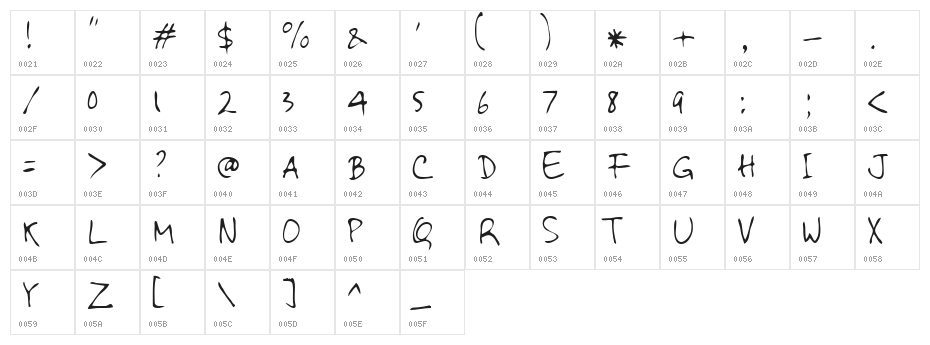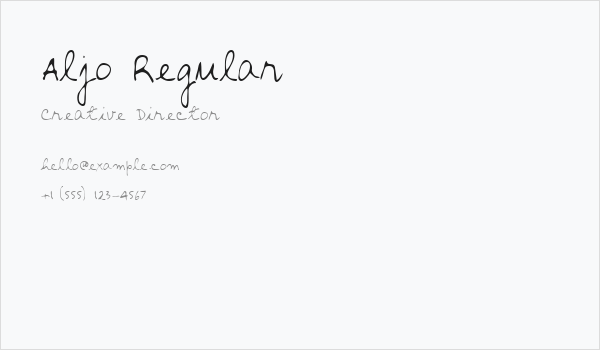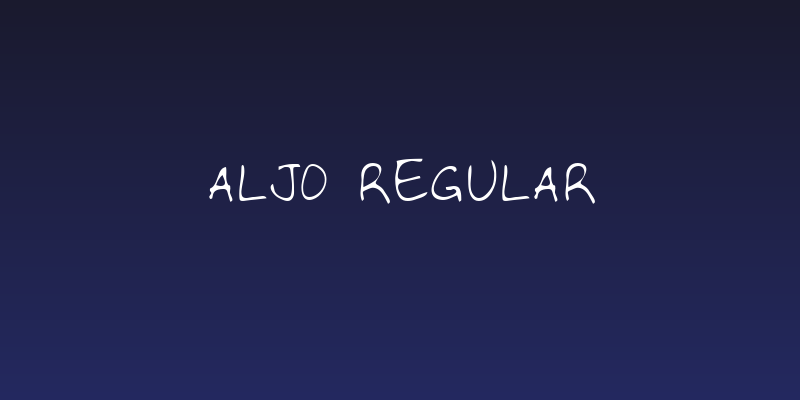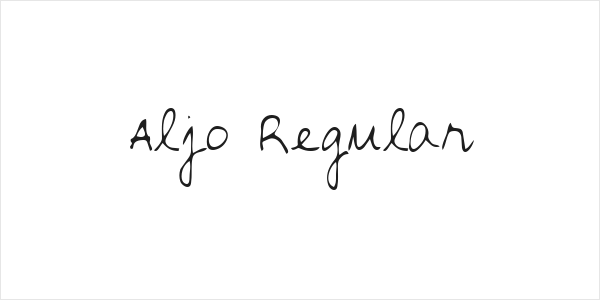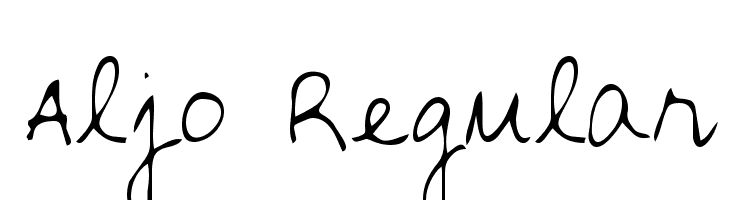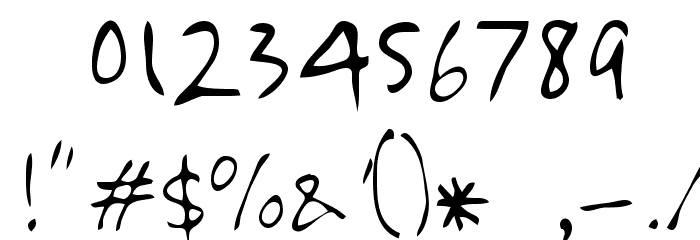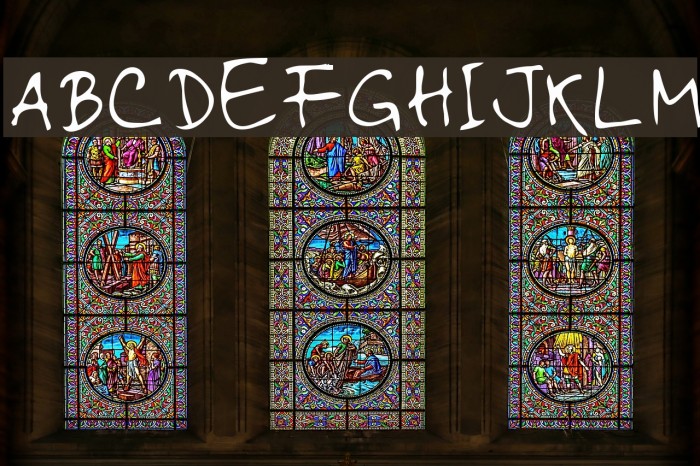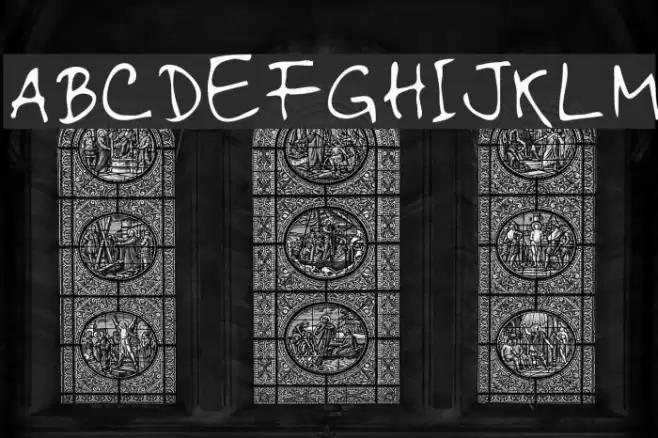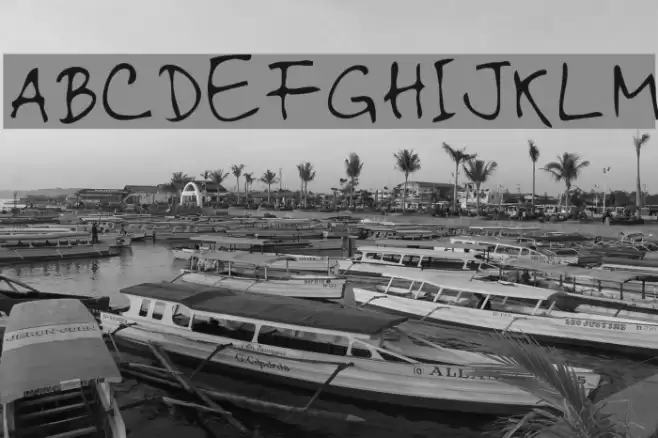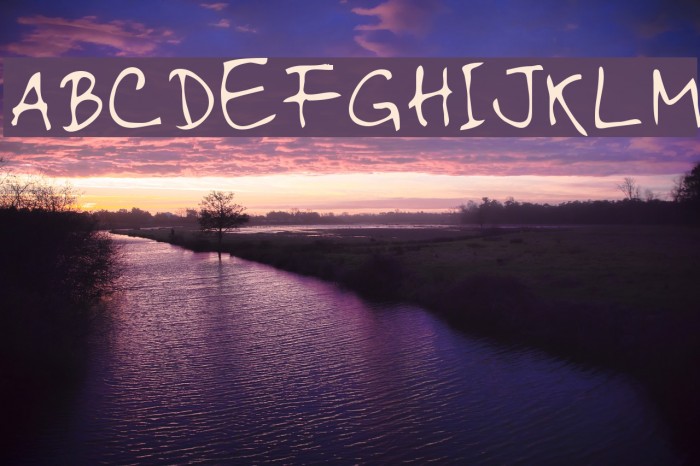
Aljo Regular Font
| Общий стиль | Casual, Informal |
| Область применения | Logos, Headlines, Personal notes |
| Рекомендуемые проекты | Ideal for greeting cards, personal notes, informal branding, and creative projects that require a personal touch. |